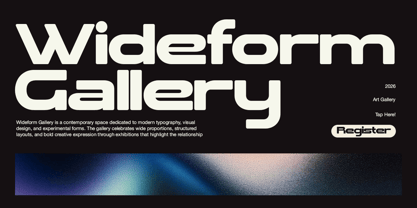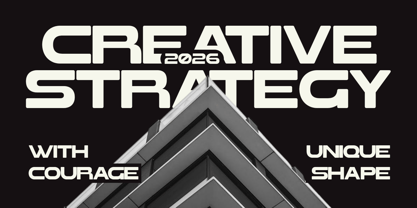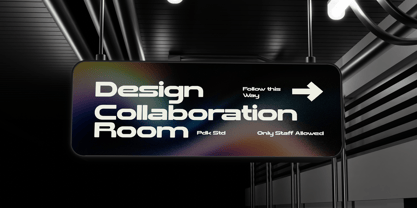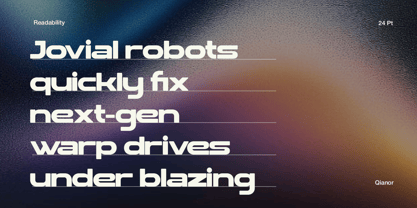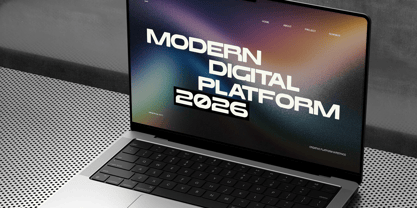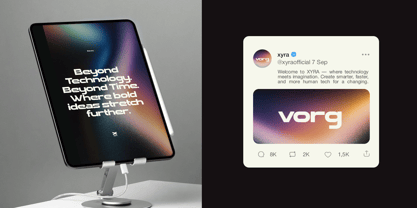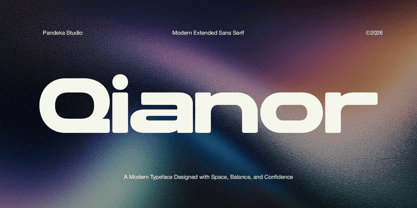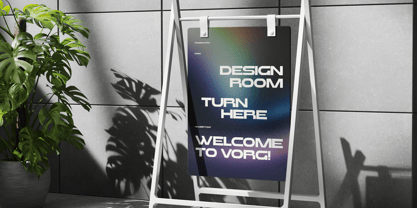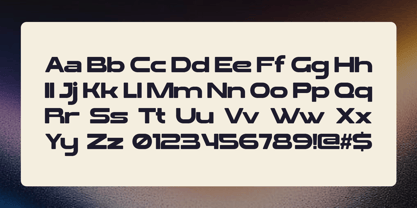
Qianor
Qianor is a modern extended sans serif font designed to deliver a sleek, futuristic, and professional look. With its wide letterforms and clean geometric structure, Qianor creates a strong visual presence that works perfectly for modern branding and technology-inspired designs.
This font comes in 1 style: Regular, and includes uppercase, lowercase, numbers, punctuation, and multilingual support. Its extended proportions make it ideal for branding, tech projects, digital interfaces, posters, headlines, futuristic themes, creative layouts, and modern visual identities.
• Full Character Set: Uppercase, lowercase, numbers, symbols, and punctuation